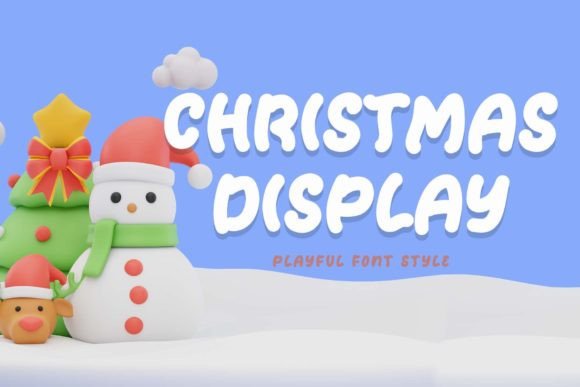
Enter the realm of festive cheer with "Christmas Display" – a charming display font that embodies the spirit of Christmas, winter wonderlands, and heartwarming moments. Inspired by the magic of the holiday season, this font captivates with its playful charm and delightful details. Its cheerful characters dance across your designs, bringing a touch of whimsy and merriment to every letter and word.
With its carefully crafted curves and ornaments, "Christmas Display" adds a touch of elegance and sophistication to your creative projects. Whether you're creating festive posters, heartwarming invitations, eye-catching book covers, or any other project that calls for a dash of holiday spirit, this font delivers.
Immerse yourself in the versatility of "Christmas Display," as it effortlessly adapts to a myriad of design needs. Its multilingual support ensures that your messages resonate with audiences across borders, while its extensive character set empowers you to express yourself with limitless creativity.
Make "Christmas Display" your go-to font for crafting heartfelt Christmas greetings, enchanting invitations, and captivating book covers. Let its festive charm ignite the imagination of your readers, transforming ordinary words into captivating expressions of joy and wonder. Experience the magic of "Christmas Display" today and elevate your designs to new heights of holiday cheer.